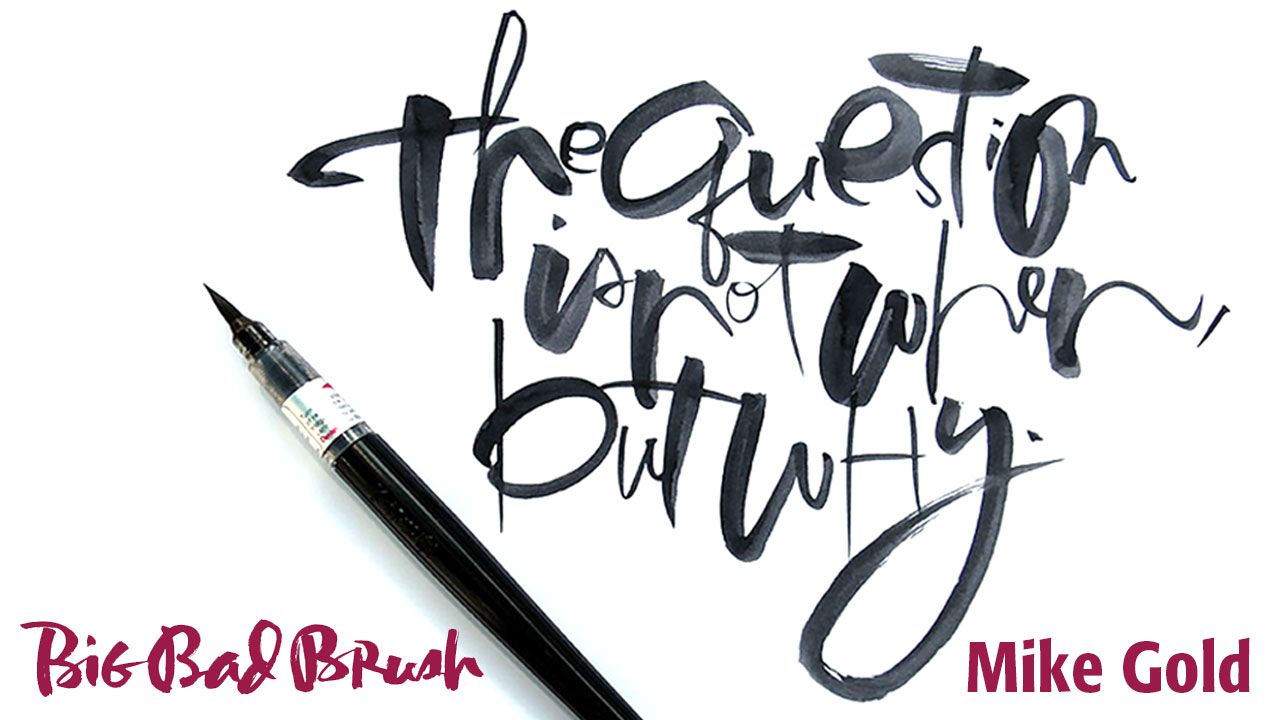
Letter along with Mike!
Tools is the theme for the year, and the pointed brush is a great tool to explore both traditional and non-traditional lettering and has applications for both commercial and fine art. In this two-hour session, I will demonstrate how both synthetic and natural hair brushes can create diverse styles and weights. You can practice along with me as I write an alphabet and letter an envelope, name card, and broadside.
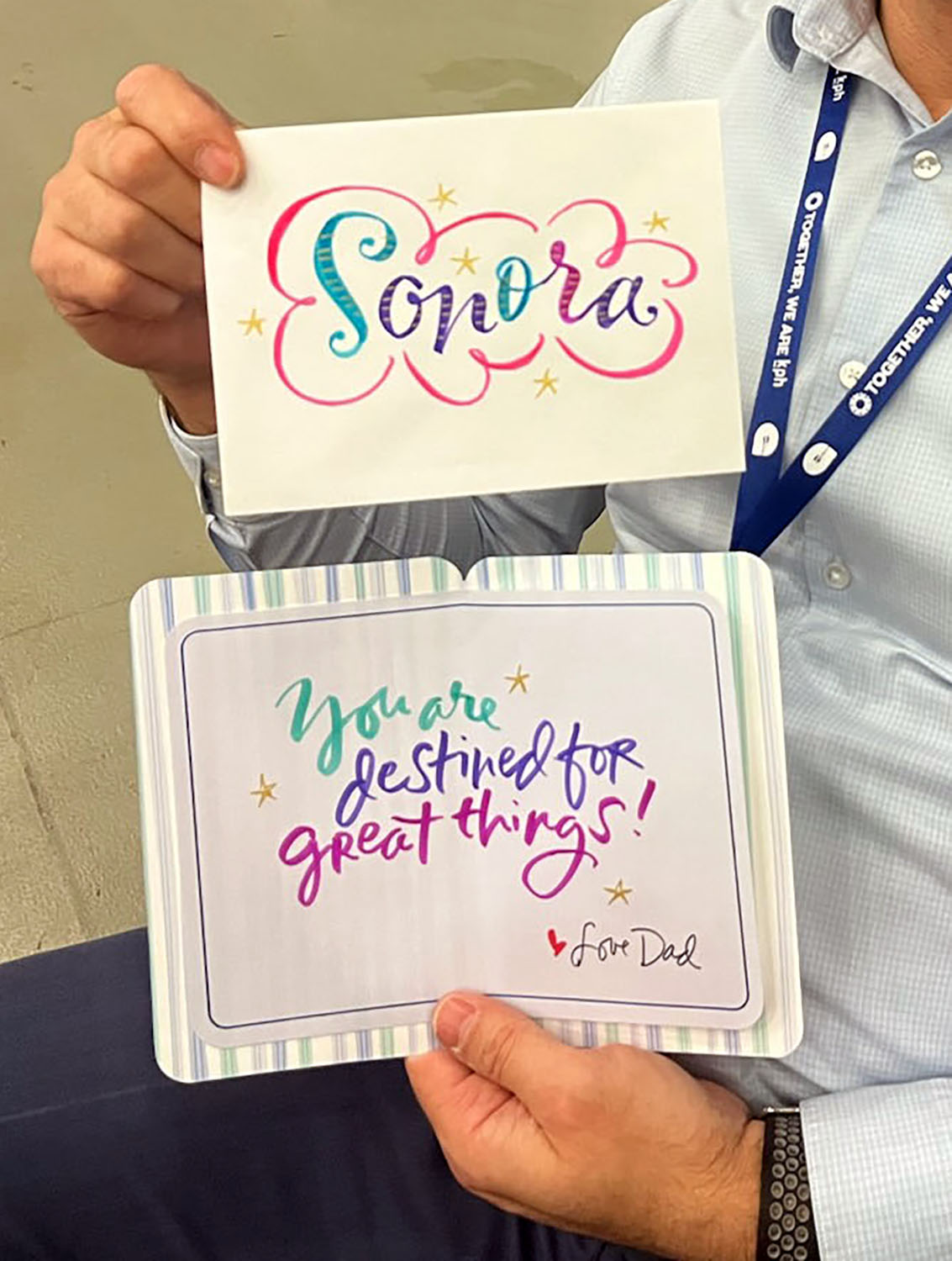
Lettering artists, calligraphers, and designers who rely heavily on lettering in their work. You don't have to have a background in calligraphy, but it will help as Mike is an advanced instructor and will not be covering the basics.
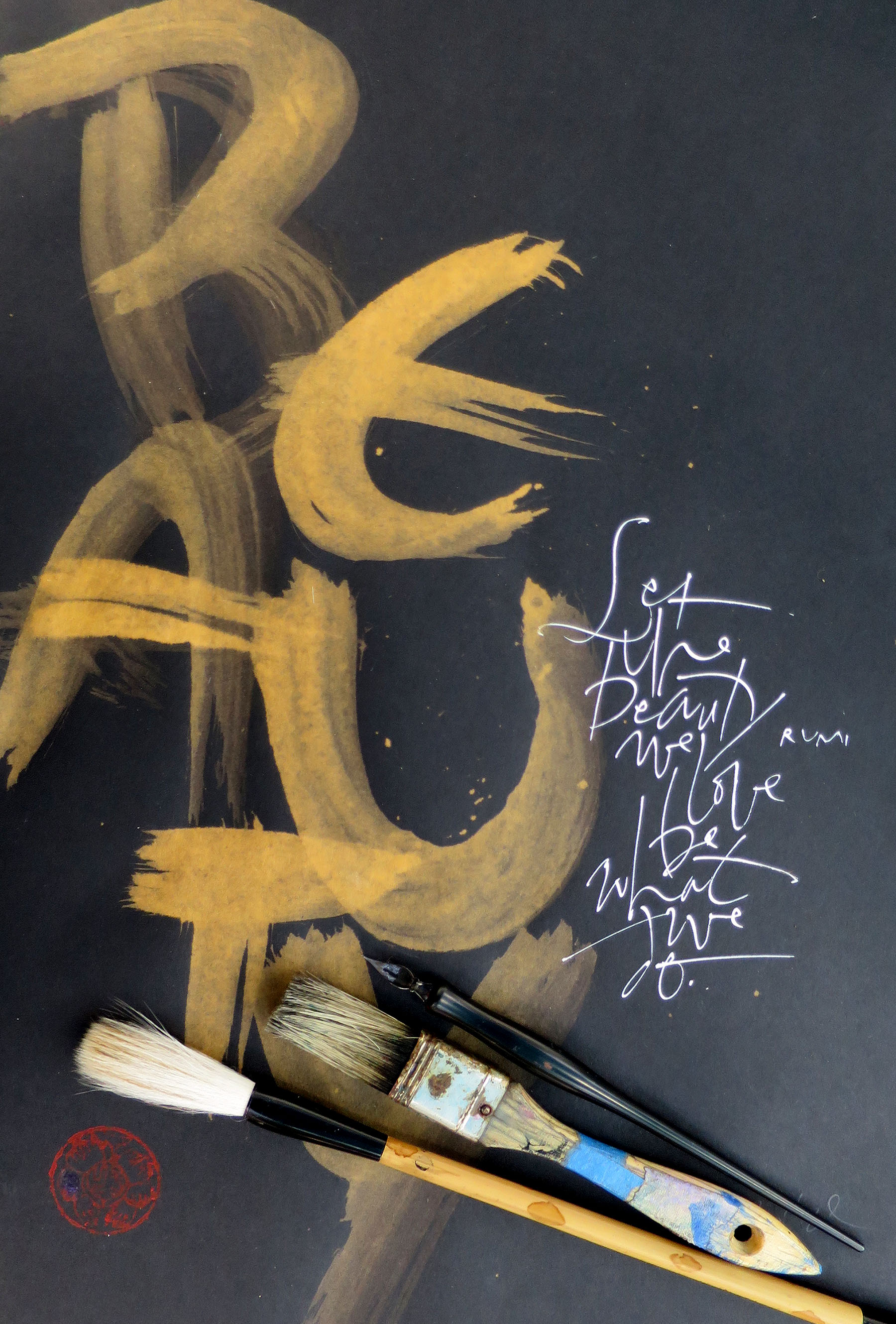
About Mike
Mike Gold worked as a commercial lettering designer for over 35 years, mostly in the social expressions business. But his real passion is exploring the corridors of calligraphy that have been less traveled, the path where words and letters are design elements with which to play with line, shape and form, where creating a visual statement is more important than writing a readable text. In both his professional and personal art, Mike breaks traditional rules to create contemporary, non-traditional work.
Mike has an M.A. in Visual Communications and has studied with many outstanding lettering and design masters over the years. Mike has taught around the country and at several international calligraphy conferences. His personal work has been featured in Letter Arts Review many times over the past 25-plus years. He has been a juror for the Letter Arts Review annual and his work is in many private collections, including the Berlin Calligraphy Archive. He is the author of Lines to Live By (available through John Neal, Bookseller), which is Mike's take on being a non-traditional calligrapher in the 21st century.